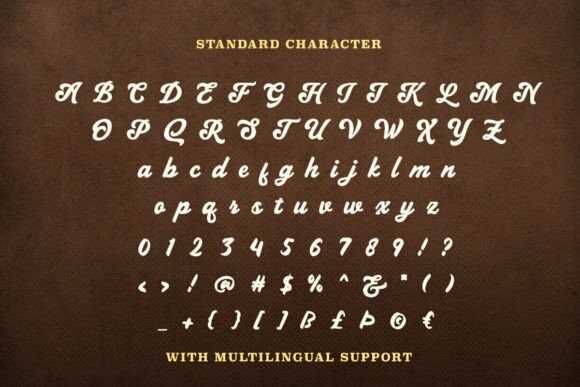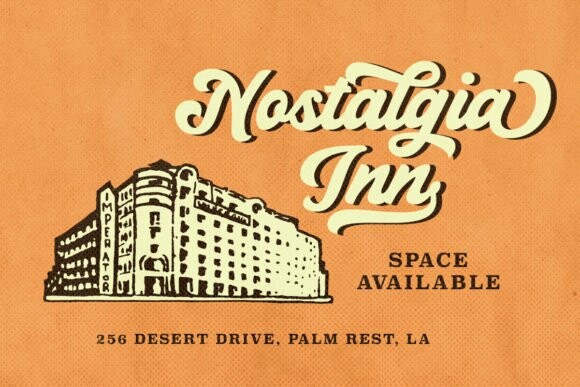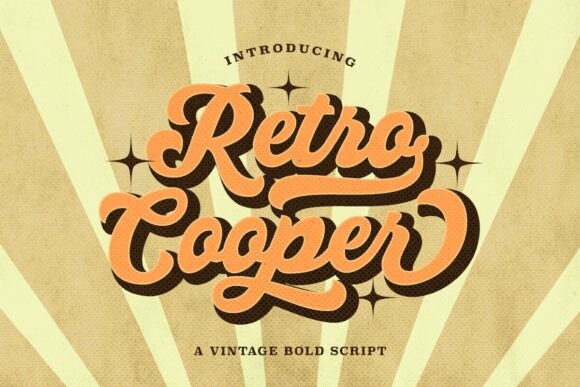
Retro Cooper Font
Designer: baletype
Retro Cooper Font is a vintage and retro bold script with stylish alternates and ligatures. With a vintage look, you can use this font for any poster retro event that requires classic, old-timey vibes.